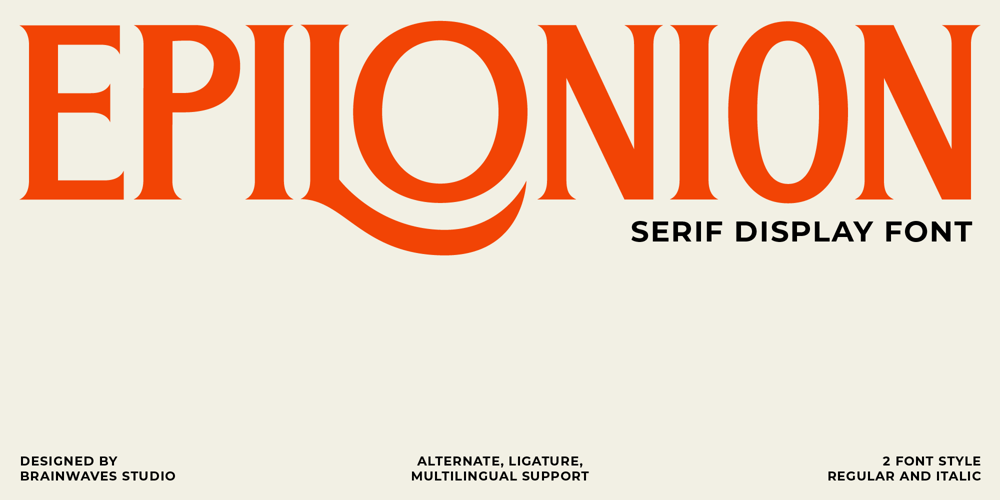
Epilonion Serif Font Family was designed by Anggil Sukma and published by Brainwaves Studio. Epilonion Serif contains 2 styles and family package options. Epilonion Serif Display Font is a striking typeface that blends sleek, modern shapes with a touch of retro charm. Its minimalist design features refined serifs, ensuring elegance and readability, making it ideal for logos, posters, and visual branding. With thoughtfully crafted alternate ligatures and multilingual support, Epilonion adds unique flair to your text and resonates across diverse audiences. Elevate your design projects with this harmonious blend of modernity and nostalgia that stands out in any context.